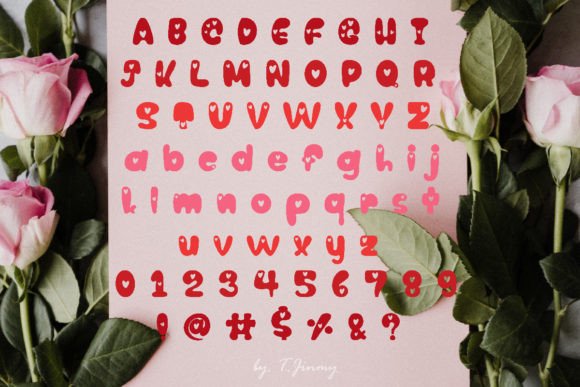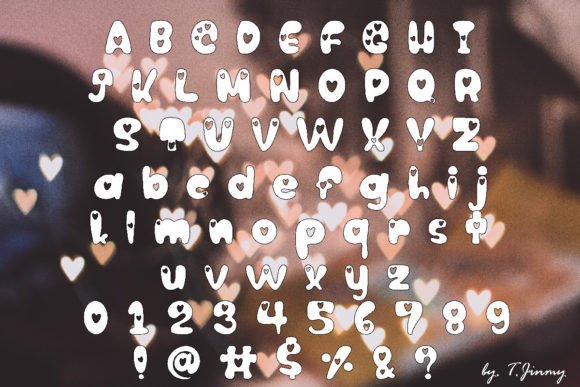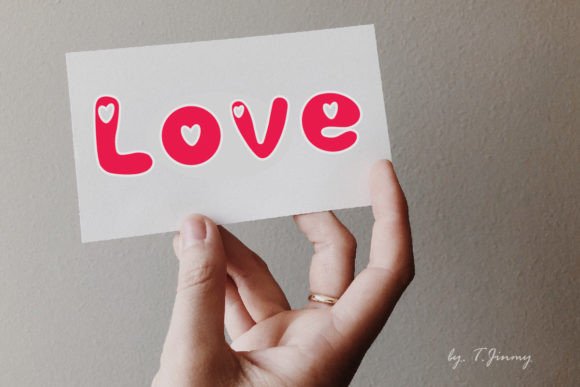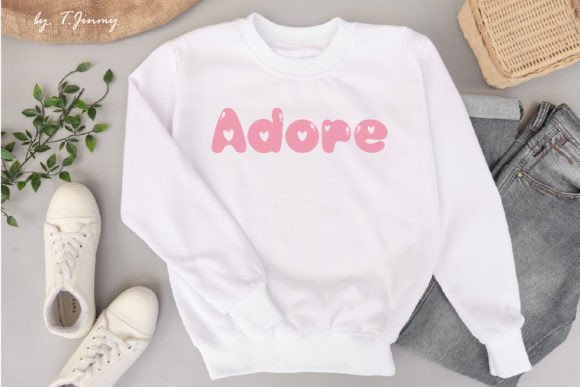
Introducing Adore Font: The Perfect Heart Decorative Theme for Designers and Crafters
Are you a designer or crafter looking for a font that adds a touch of love and warmth to your projects? Look no further than Adore Font, a lovely font style with a heart decorative theme that’s perfect for a wide range of applications. In this article, we’ll explore the features and benefits of Adore Font, and show you how it can elevate your logos, branding, social media, DIY projects, Valentine’s Day cards, and more.
What is Adore Font?
Adore Font is a unique and charming font style that’s designed to add a heartwarming touch to your designs. With its decorative heart theme, this font is perfect for anyone looking to create a romantic, whimsical, or playful vibe in their projects. Whether you’re a professional designer or a crafty DIY enthusiast, Adore Font is sure to inspire your creativity and help you create something truly special.
Features of Adore Font
So, what makes Adore Font so special? Here are just a few of its key features:
- Heart Decorative Theme: The standout feature of Adore Font is its beautiful heart decorative theme. Each letter is carefully designed to incorporate heart shapes, making it perfect for Valentine’s Day cards, love letters, and other romantic projects.
- Versatile: Adore Font is incredibly versatile, making it suitable for a wide range of applications, from logos and branding to social media graphics, DIY projects, and more.
- Elegant and Whimsical: Adore Font strikes the perfect balance between elegance and whimsy, making it ideal for designers and crafters who want to add a touch of personality to their projects.
Uses of Adore Font
So, how can you use Adore Font in your projects? Here are some ideas to get you started:
- Logos and Branding: Create a memorable and eye-catching logo for your business or brand with Adore Font. Its unique heart decorative theme is sure to make your brand stand out.
- Social Media Graphics: Add a touch of love and warmth to your social media graphics with Adore Font. Use it to create engaging posts, stories, and ads that will capture your audience’s attention.
- DIY Projects: Adore Font is perfect for crafty DIY projects, such as handmade cards, gift tags, and scrapbooking pages. Add a personal touch to your creations with this beautiful font.
- Valentine’s Day Cards: Make your Valentine’s Day cards extra special with Adore Font. Create romantic and heartfelt messages that will make your loved ones feel special.
Tips for Using Adore Font
Here are some tips for getting the most out of Adore Font:
- Experiment with Colors: Adore Font looks great in a range of colors, from soft pastels to bold brights. Experiment with different colors to find the perfect combination for your project.
- Mix and Match: Don’t be afraid to mix and match Adore Font with other fonts to create a unique and eye-catching look.
- Use it for Headings: Adore Font is perfect for headings and titles, where its decorative theme can really shine.
In conclusion, Adore Font is a lovely font style with a heart decorative theme that’s perfect for designers and crafters looking to add a touch of love and warmth to their projects. With its versatility, elegance, and whimsy, Adore Font is sure to inspire your creativity and help you create something truly special. So why not give it a try and see what amazing projects you can create with Adore Font?